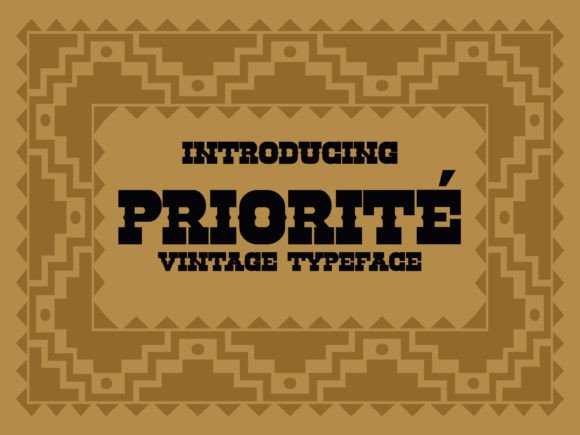
Unleash the Power of Expression with Priorite Font: A Journey Through Elegance and Distinction
Embark on a typographic voyage with Priorite Font, a captivating display font that exudes simplicity and vintage charm. Designed by the skilled hands of artnivora.std, this font is a masterpiece, meticulously crafted to elevate your designs to new heights. Priorite is not just a font; it is an invitation to explore the realm of creativity, where words dance with grace and elegance.
Priorite possesses an undeniable allure, its characters etched with the essence of nostalgia and timeless beauty. Each letterform is a work of art, meticulously shaped to convey emotion and meaning. Whether you're crafting a striking logo, weaving tales in a magazine layout, or captivating your audience on social media, Priorite is your perfect companion.
Immerse yourself in a world where fonts come alive, where each letter carries a story. Priorite is more than just a font; it's a conduit for your imagination, a key to unlocking your creative potential. Its vintage charm adds a touch of sophistication to any design, evoking a sense of heritage and authenticity.
With Priorite, you'll discover the power of versatility, seamlessly adapting to a myriad of design projects. Create eye-catching brochures that command attention or let your words flow with grace in captivating social media posts. Priorite is your versatile companion, always ready to elevate your designs and leave a lasting impression.
Unleash the beauty of Priorite today and witness the transformation of your designs. Let your creativity soar as you explore the endless possibilities this font holds. Priorite is more than just a font; it's a gateway to a world of elegance, distinction, and endless creative expression.